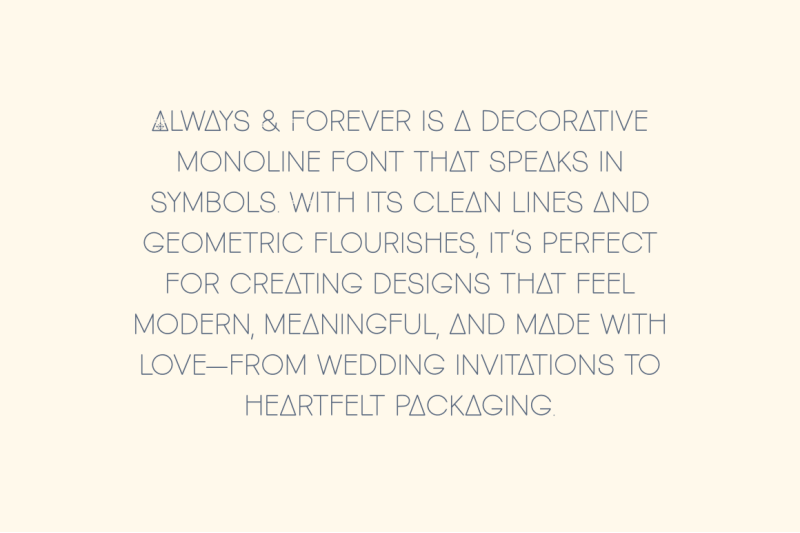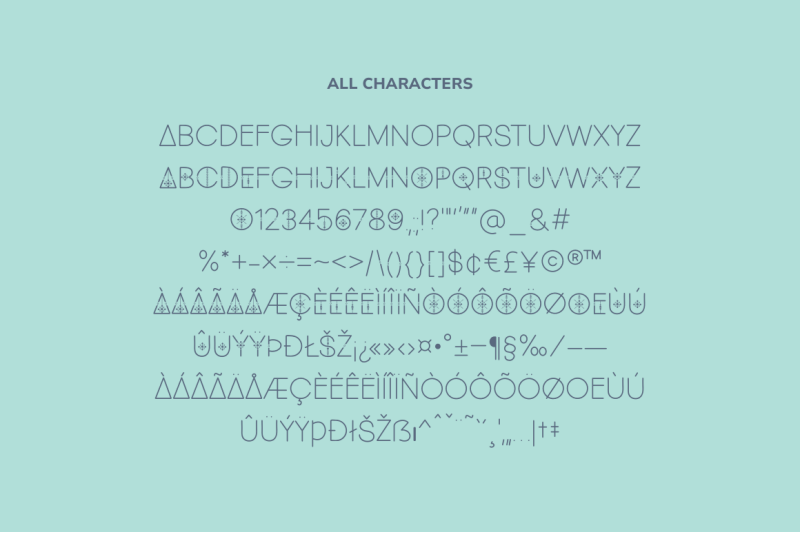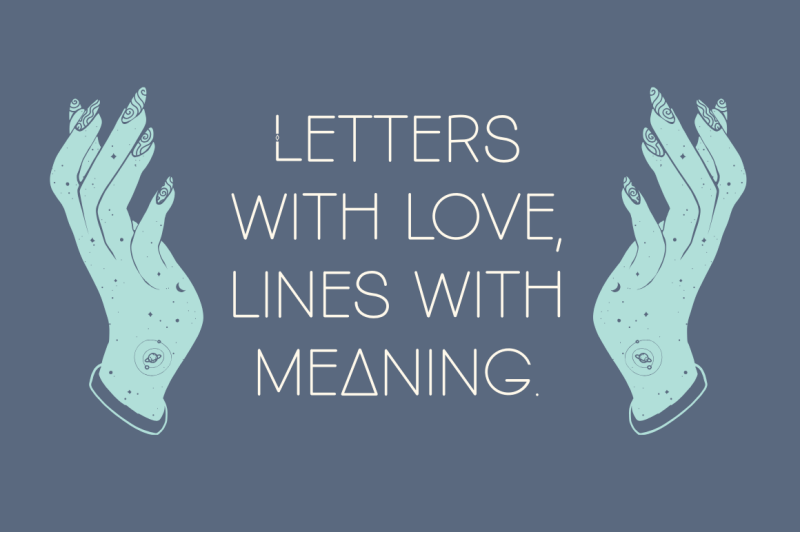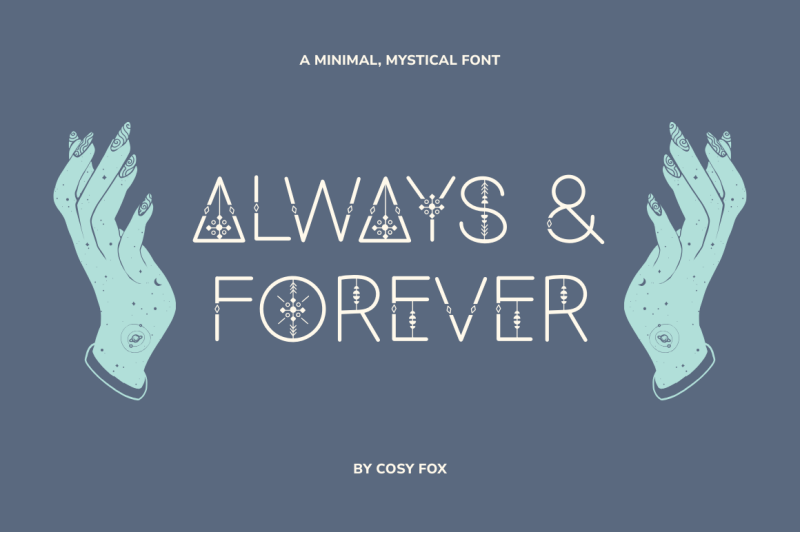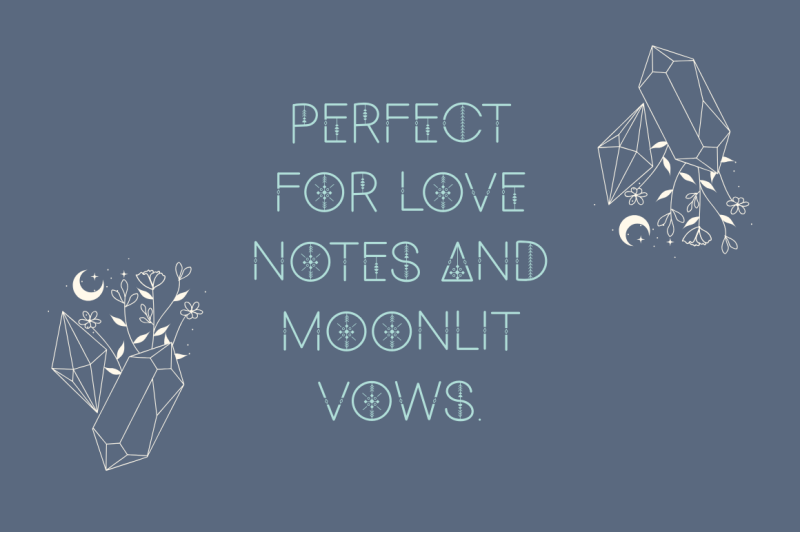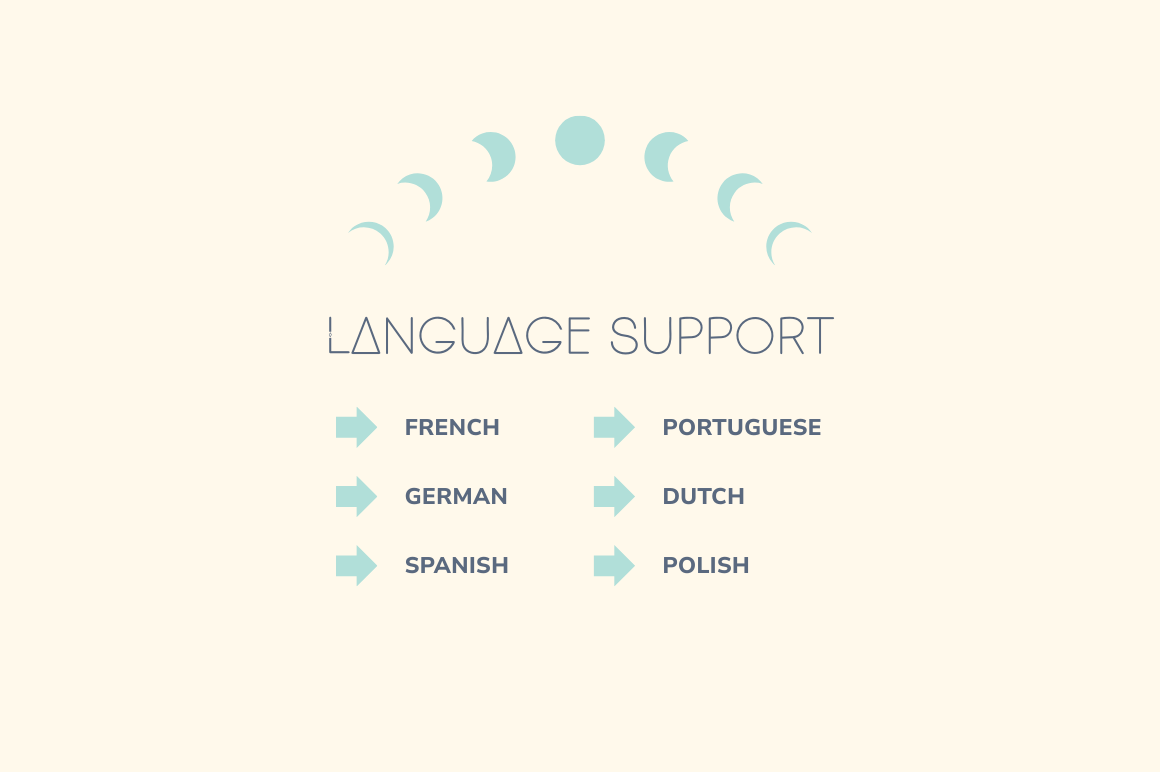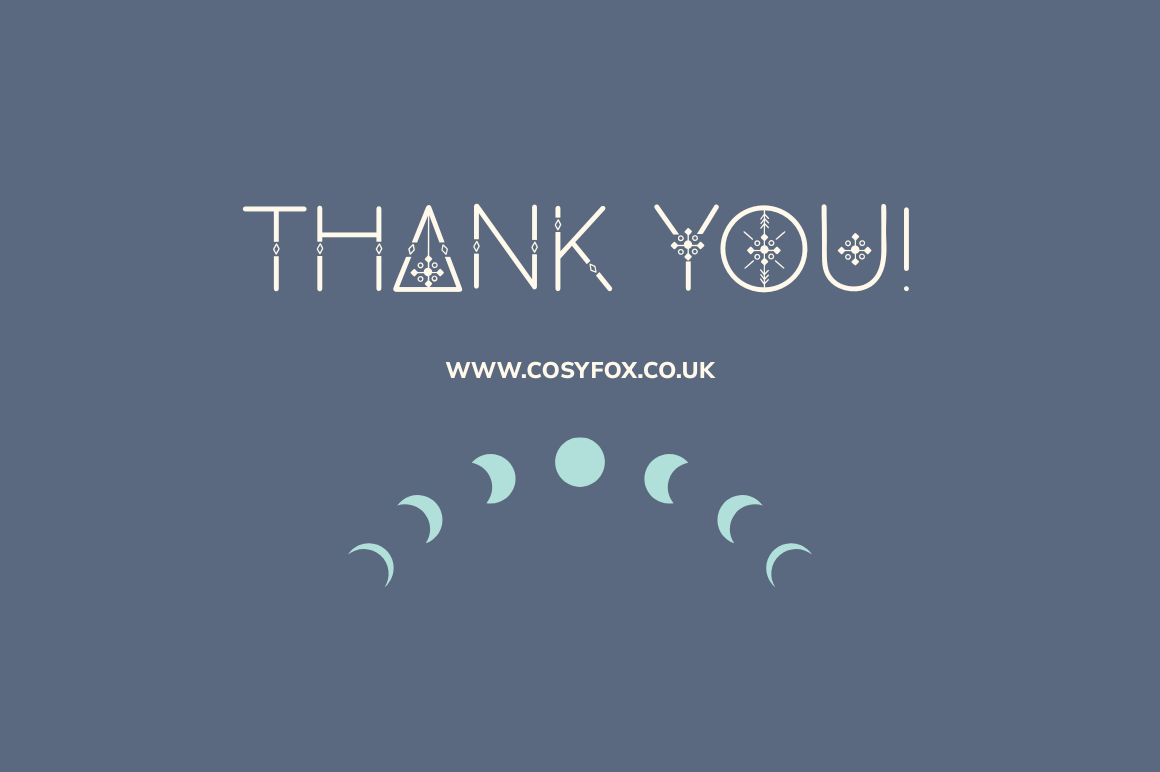
Always & Forever is a romantic, decorative monoline font with geometric details and symbolic charm. Designed for elegant projects that want to feel magical and meaningful, it’s ideal for weddings, vow books, brand identities, and anything that calls for soft beauty with a modern twist. Delicate lines and handcrafted shapes come together to create a font that’s simple but striking—perfect for dreamy creatives, spiritual brands, or heartfelt gifts. Fully compatible with Canva, Procreate, and all your favourite design tools. Language Support: French, German, Spanish, Italian and Portuguese. What You Get: Always & Forever .OTF font file, How to Install PDF. Thank You! www.cosyfox.co.uk